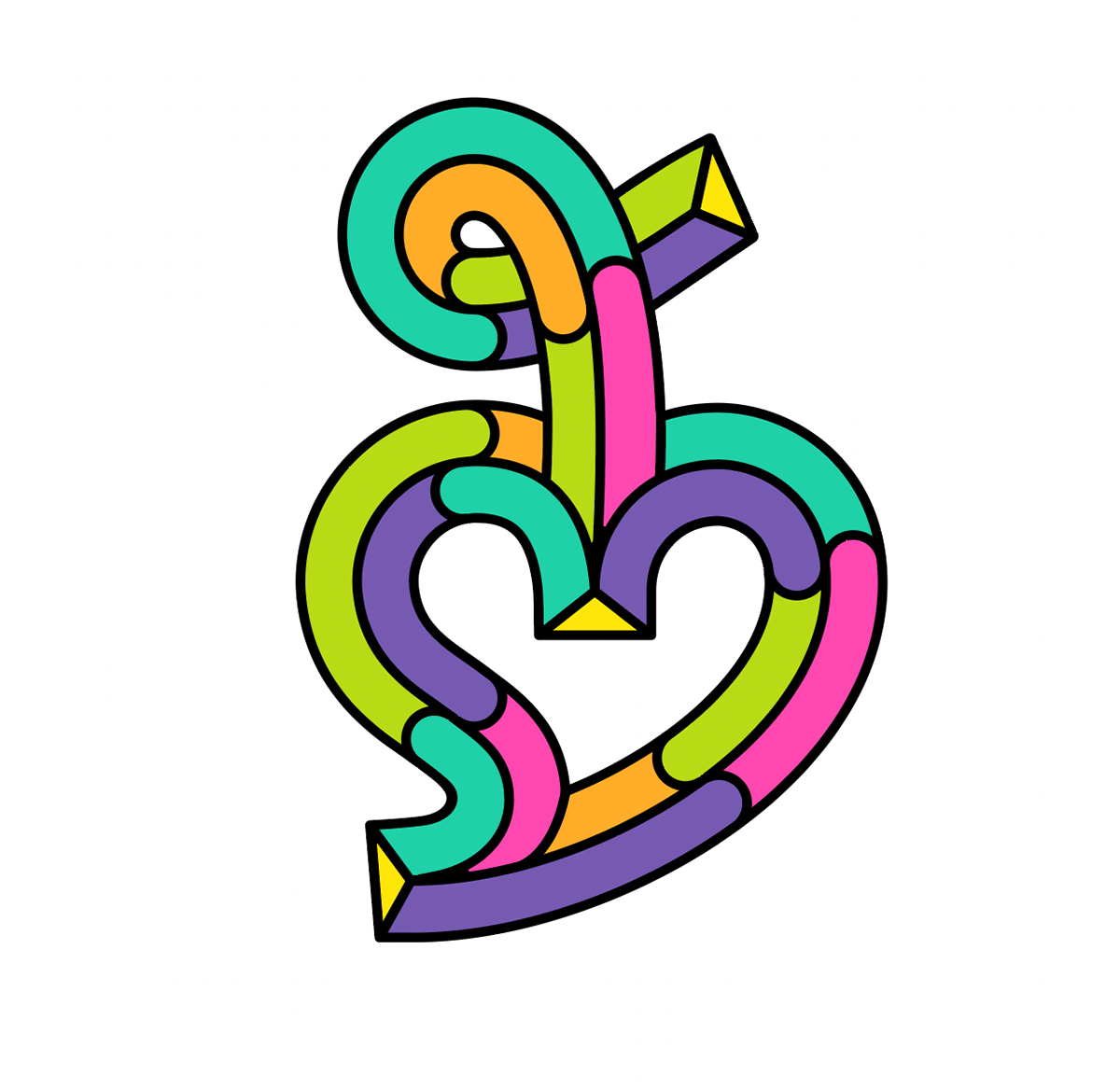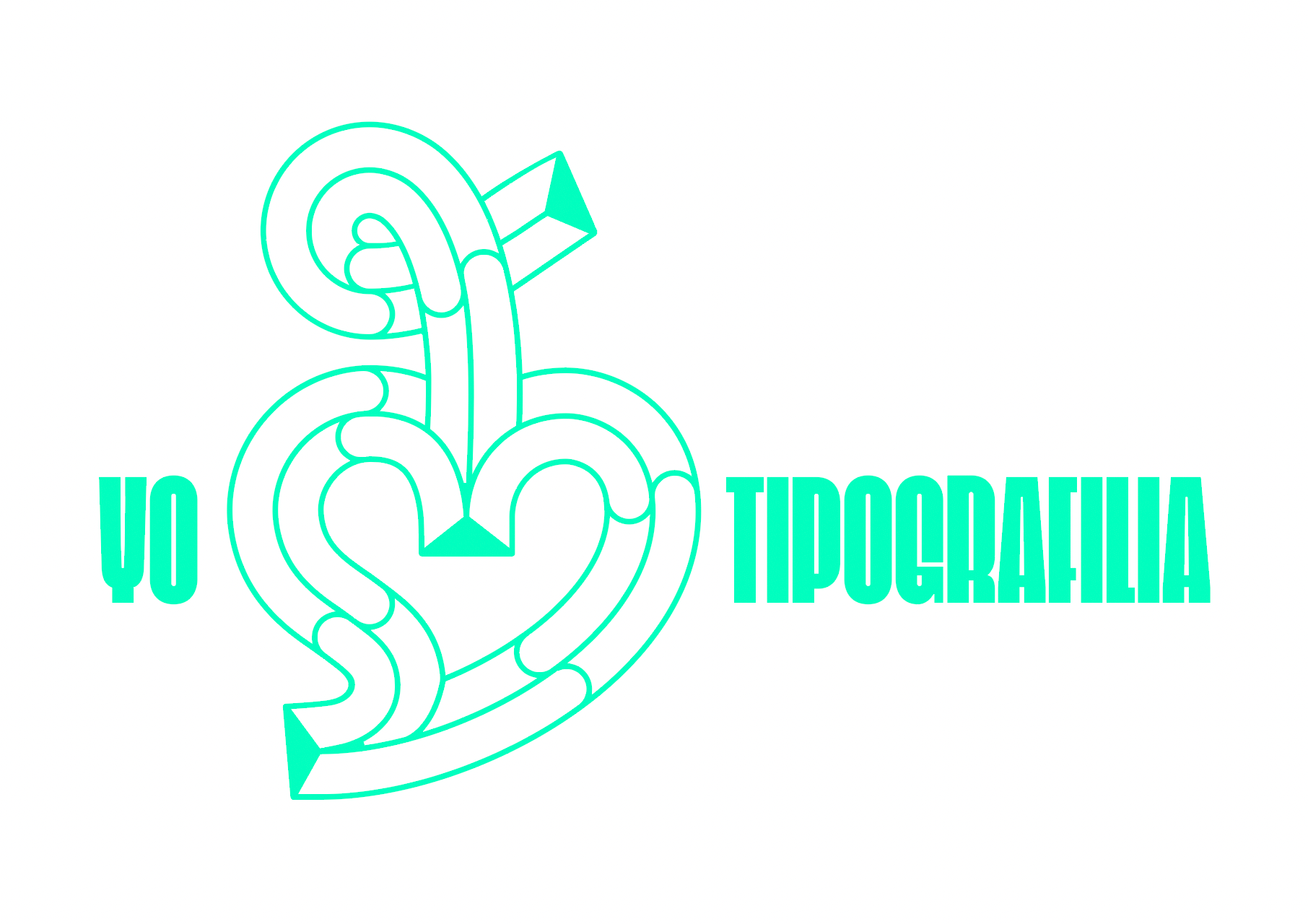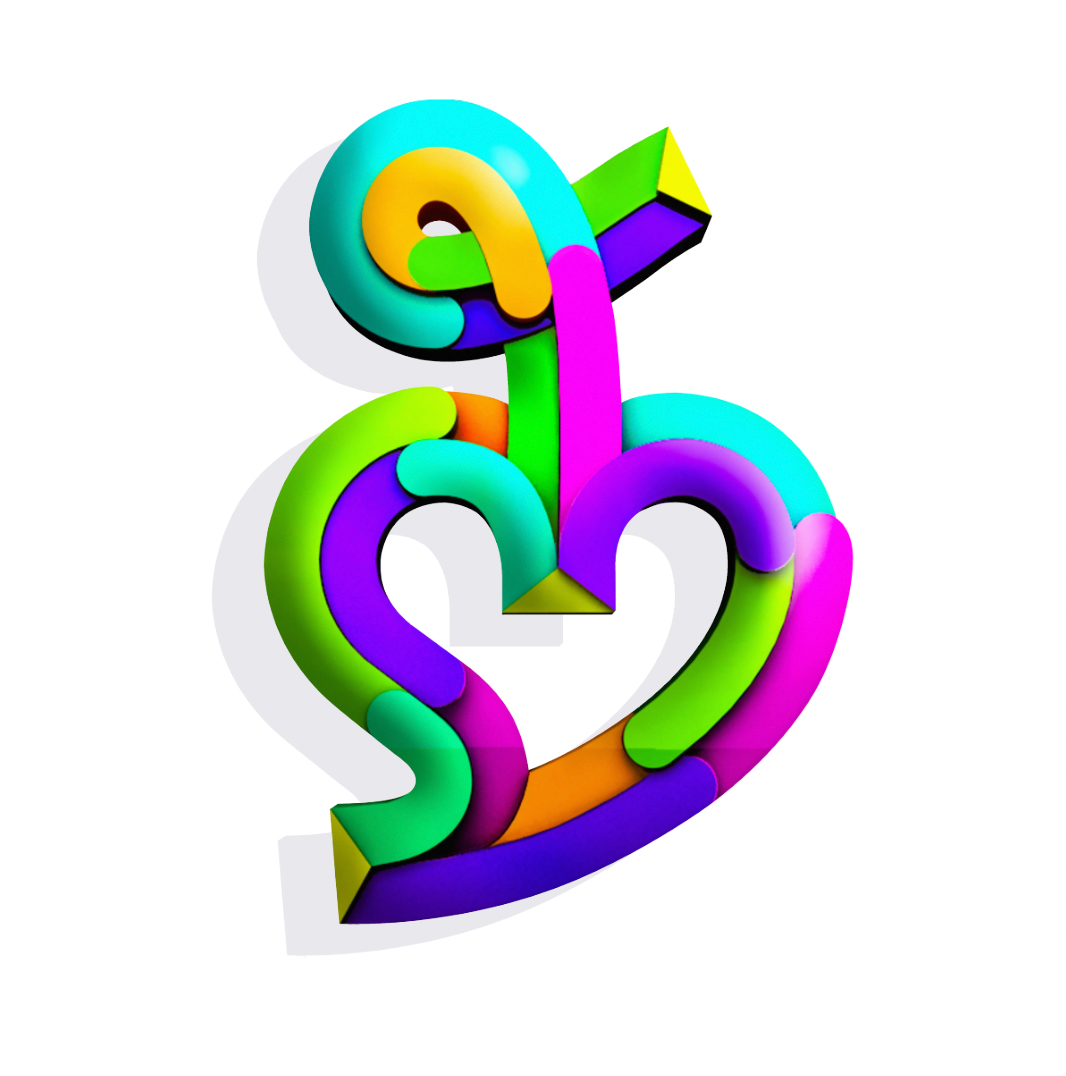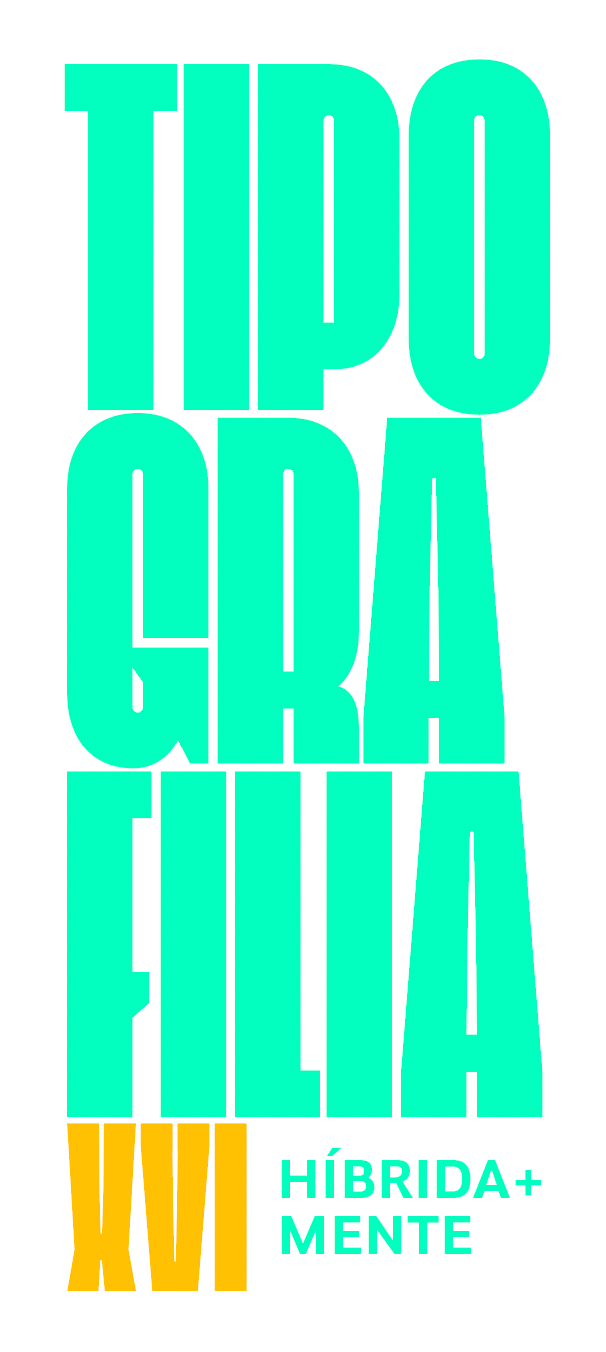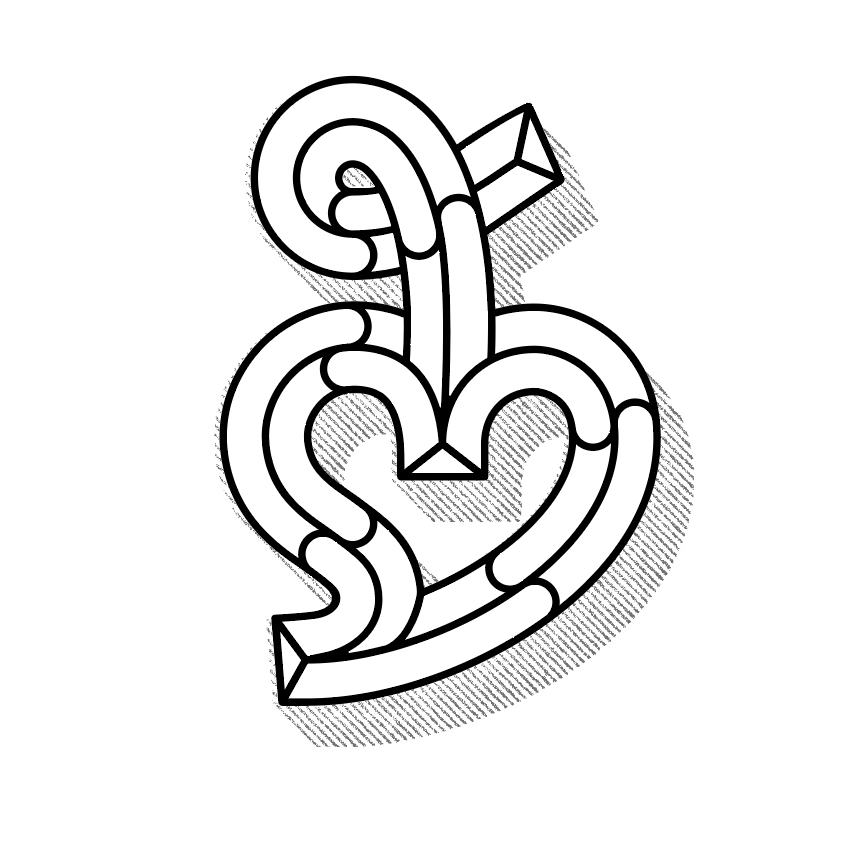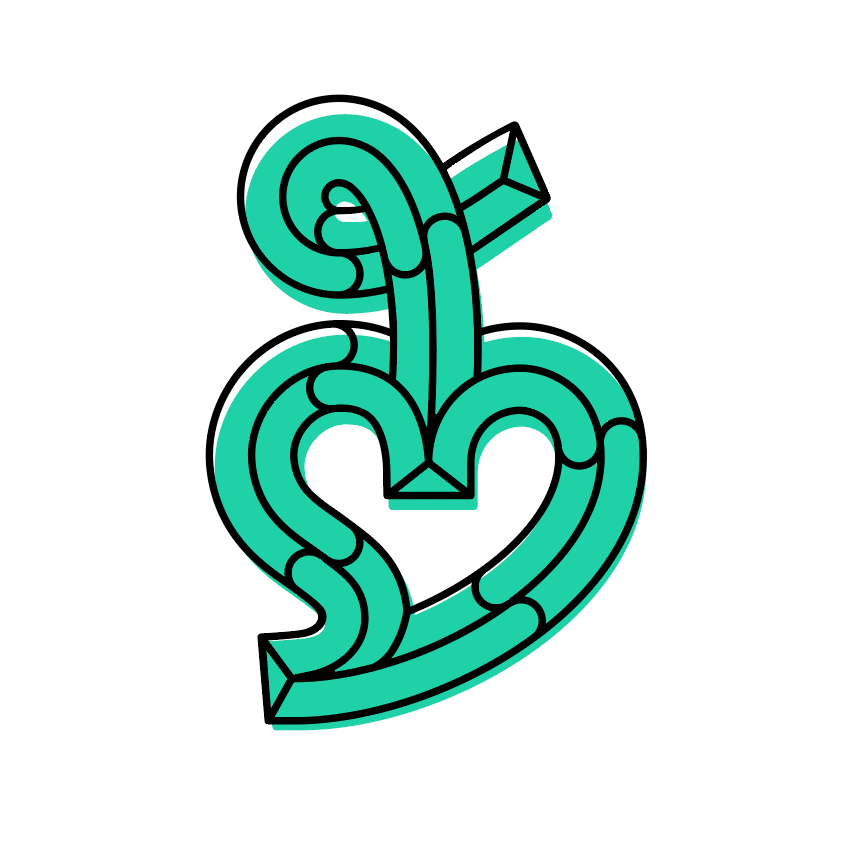
Creating the graphic identity of the 16th edition of typography studios has been one of the projects that we have enjoyed the most.  We explore from drawing online, in colored paste and in 3D survey.
Final Design
Typographic design made to accompany the floron symbol.
Commemorative Pin